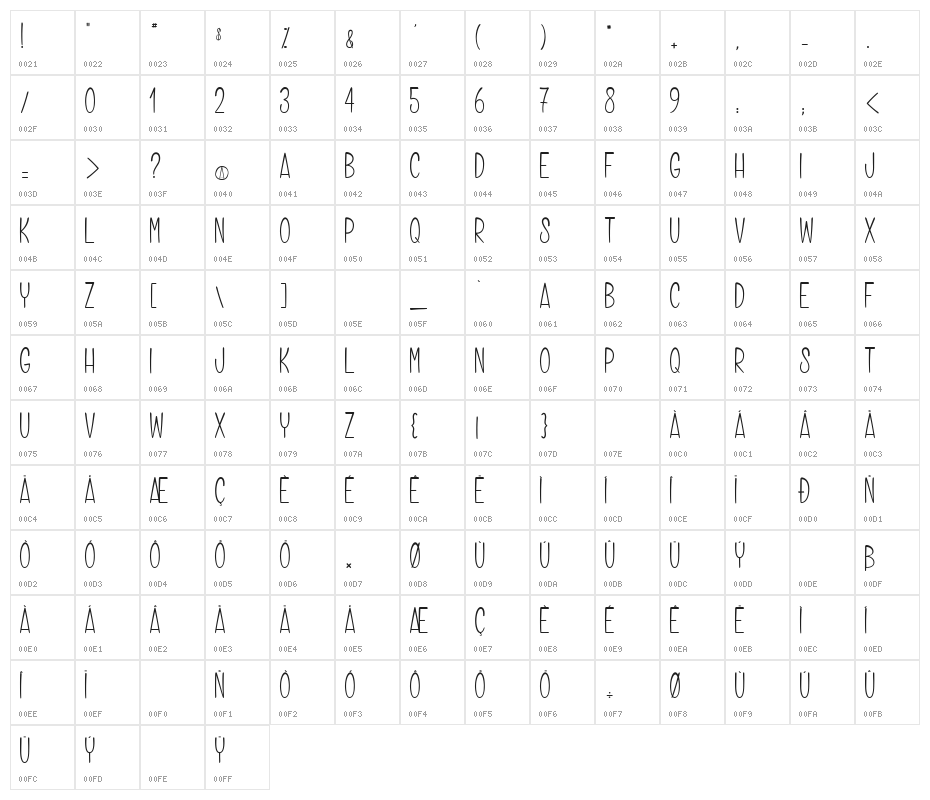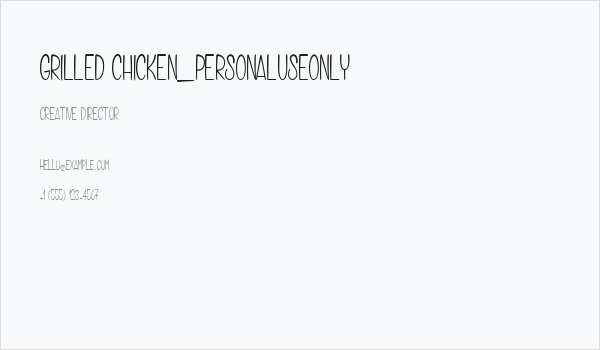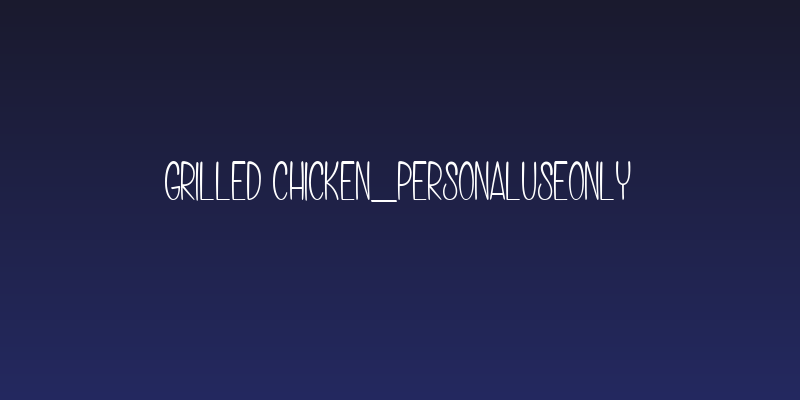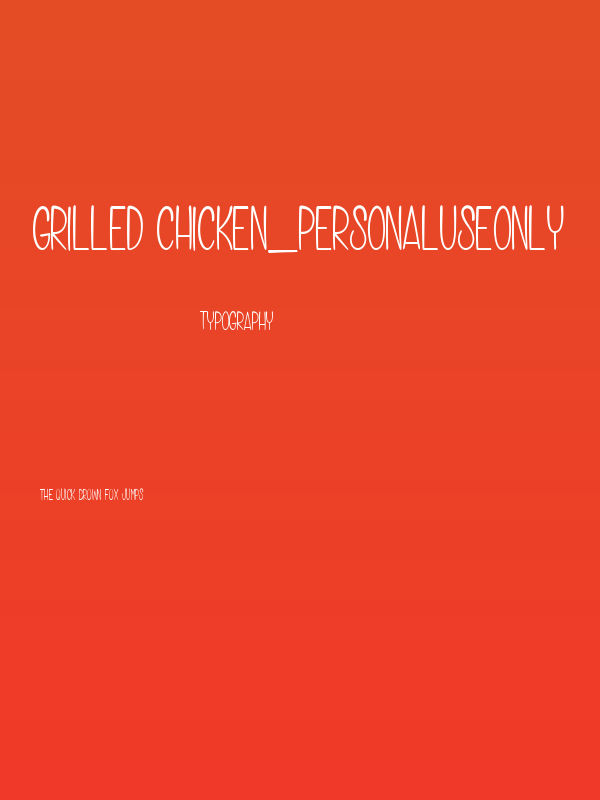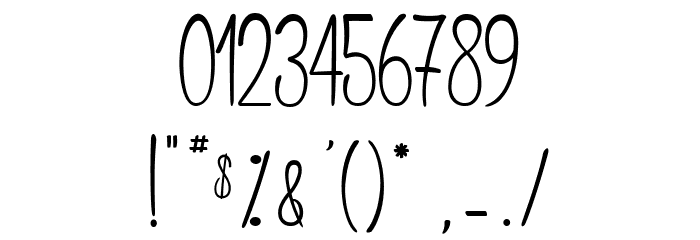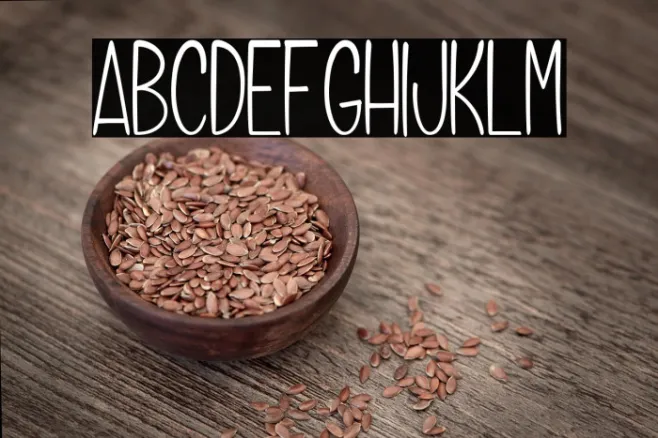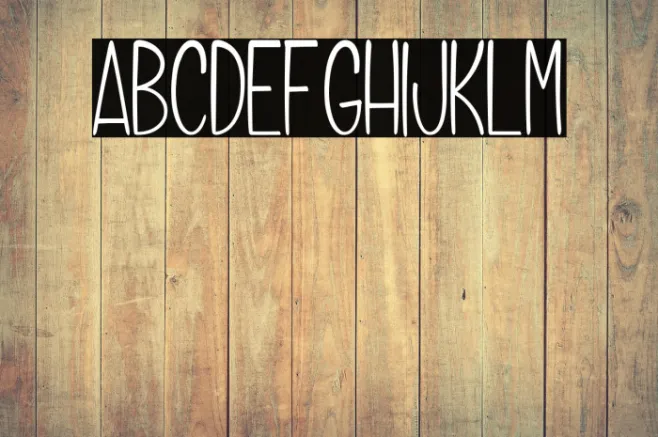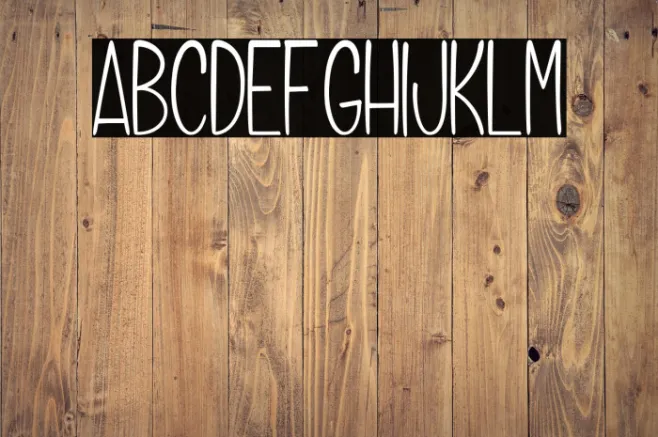
Grilled Chicken_PersonalUseOnly Font
Grilled Chicken_PersonalUseOnly Description
This font features a playful and whimsical style with tall, narrow letters that have a hand-drawn appearance. The characters are slightly irregular, adding a charming and informal touch. The uppercase and lowercase letters maintain a consistent height, while the numbers and special characters are designed to complement the overall aesthetic. The strokes are smooth and rounded, giving the font a friendly and approachable feel. This font is ideal for projects that require a casual and fun vibe.
| Proposed Projects | Great for children's books, greeting cards, playful branding, and social media graphics. |